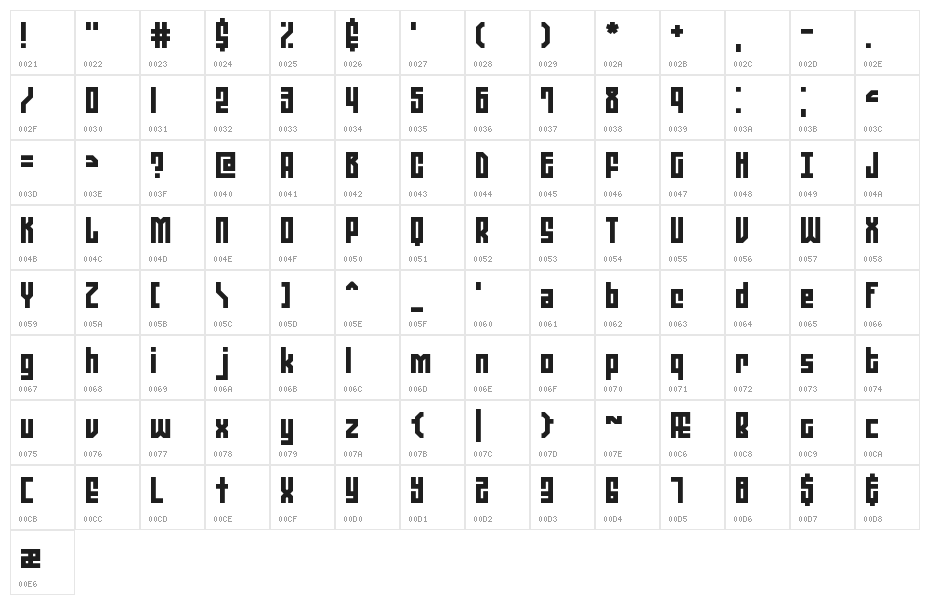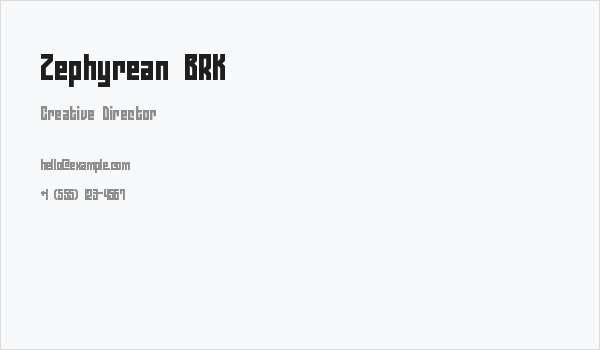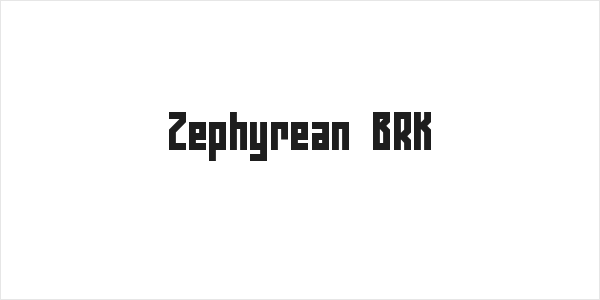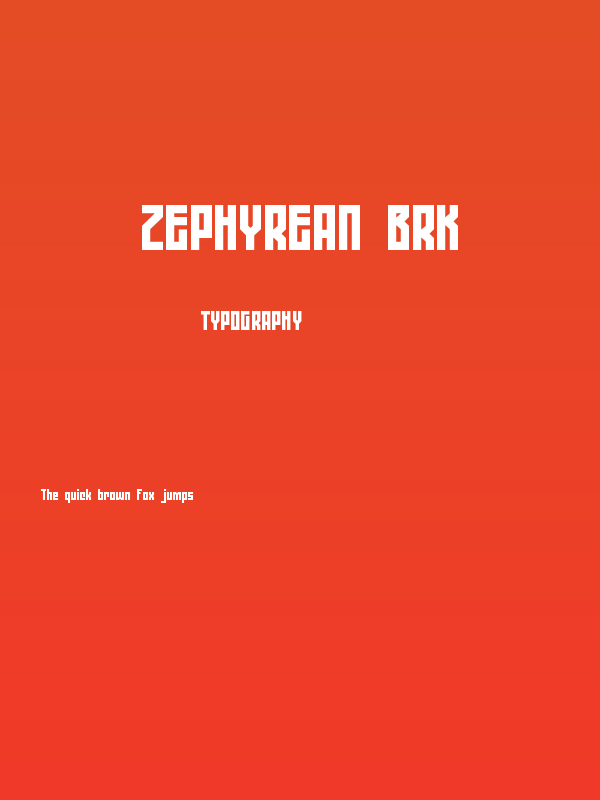
Zephyrean BRK Font
Zephyrean BRK Description
This font features a bold, geometric design with a strong, angular presence. The characters are constructed with thick, block-like strokes that give it a robust and impactful appearance. The uppercase and lowercase letters maintain a consistent style, with sharp edges and a uniform height that enhances readability. The numerals and special characters follow the same geometric pattern, ensuring a cohesive look across all text. This font's unique style makes it stand out, making it suitable for attention-grabbing designs.
| Proposed Projects | Ideal for posters, headlines, logos, and any design requiring a strong visual impact. |